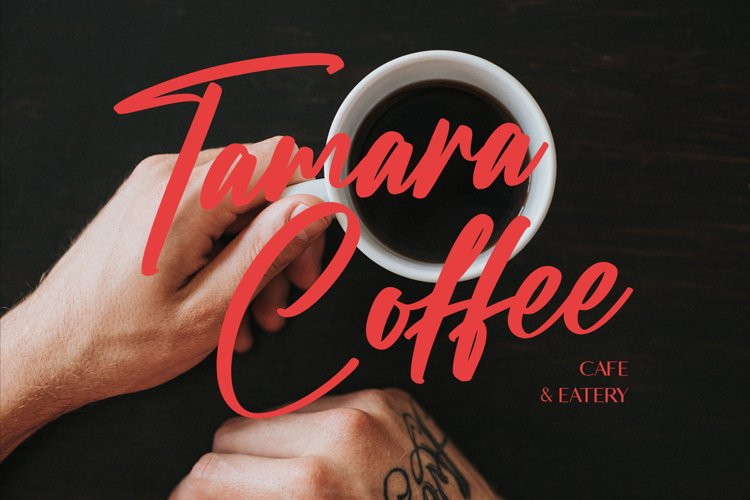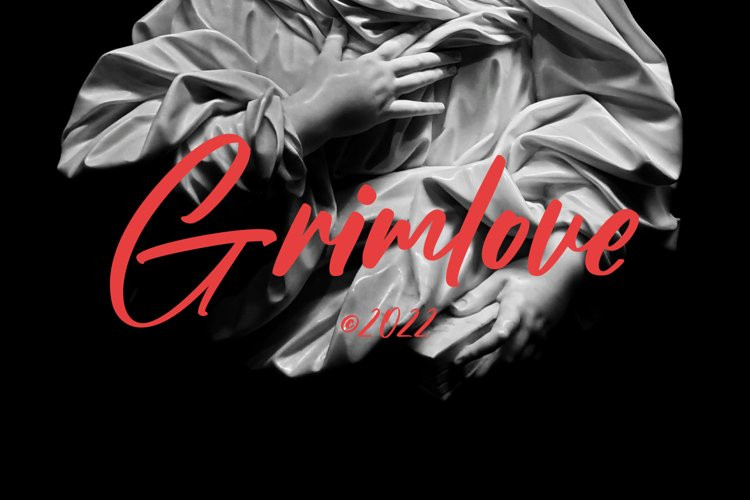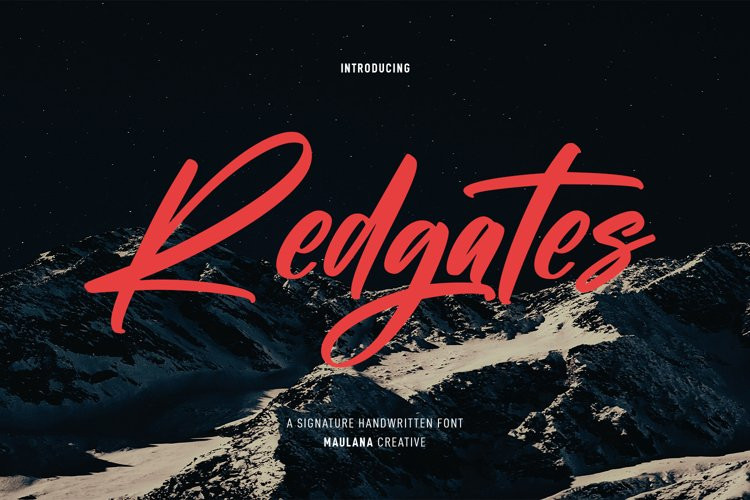
Redgates Font
Redgates FontRedgates is a fancy handwritten script font. With bold contrast stroke, fun character with a bit of ligatures and alternates. To give you an extra creative work. Redgates font support multilingual more than 100+ language. This font is good for logo design, Social media, Movie Titles, Books Titles, a short text even a long text letter and good for your secondary text font with sans or serif. Make a stunning work with Redgates font.